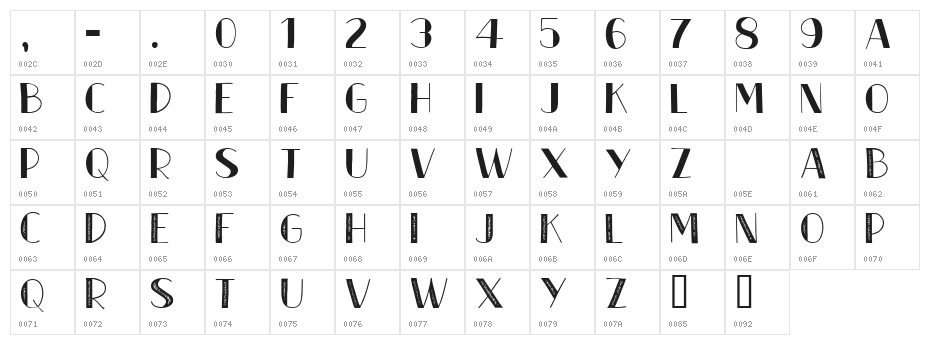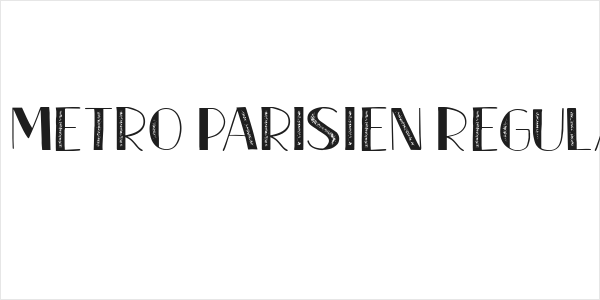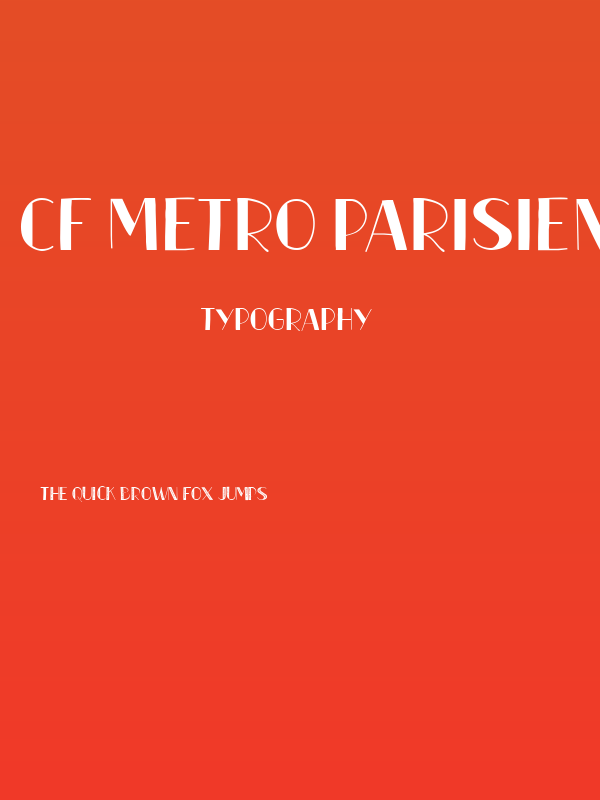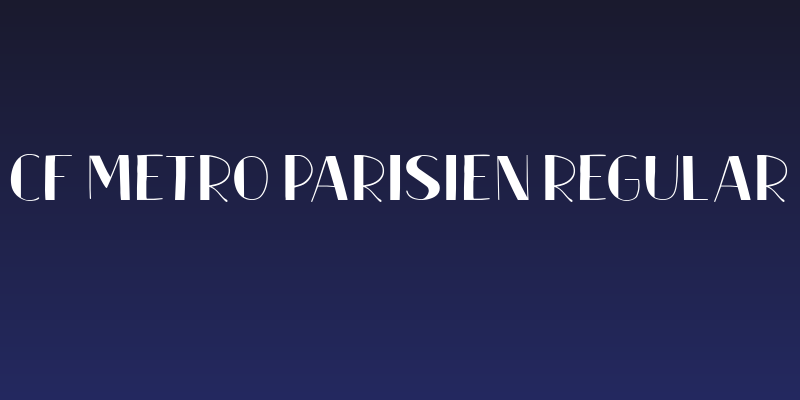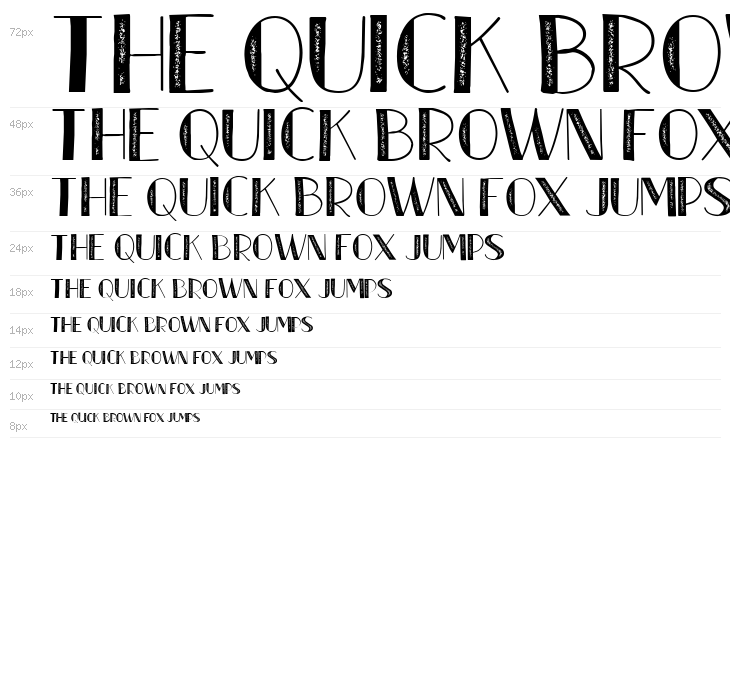
CF Metro Parisien Regular Font
CF Metro Parisien Regular Description
This font features a unique blend of Art Deco and modern design elements, characterized by its geometric shapes and bold, clean lines. The uppercase letters exhibit a strong presence with their tall, narrow forms, while the lowercase letters maintain a consistent style that complements the overall aesthetic. The numerals are distinct and easily readable, with a slight variation in stroke width that adds visual interest. Special characters are designed to match the font's overall style, ensuring a cohesive look across all text elements. The font's design is both elegant and functional, making it suitable for a variety of creative projects.
| Proposed Projects | Ideal for branding, posters, signage, and editorial design where a strong visual impact is desired. |